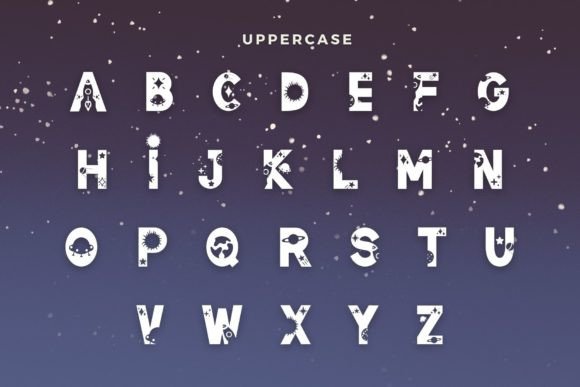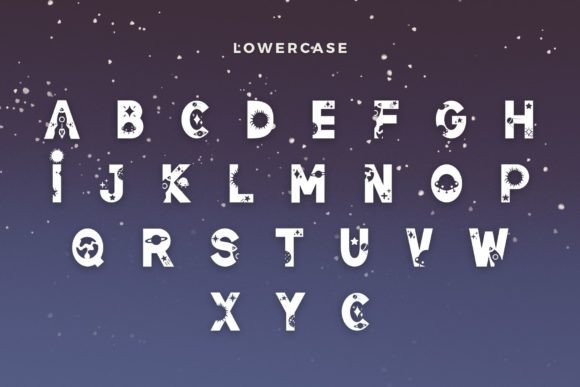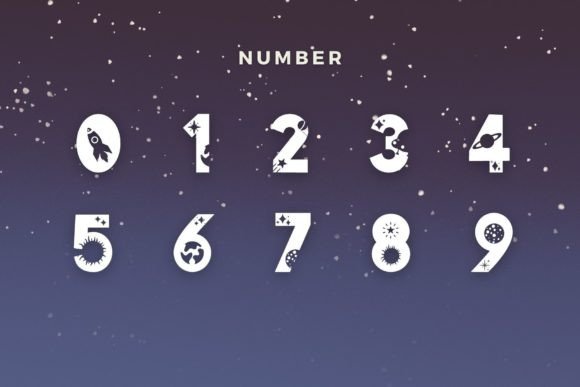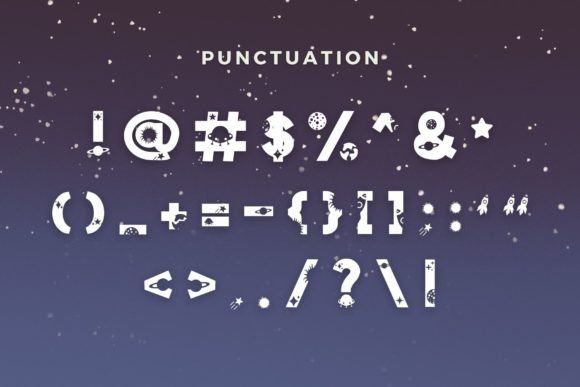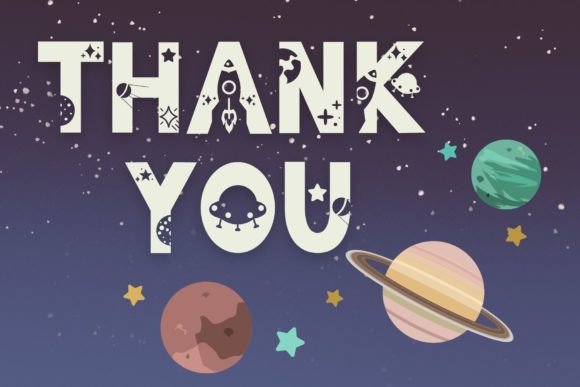
Introduction to Planet Space Font
Planet Space is a jolly and fun decorative font.
It embodies playfulness and authenticity and is the perfect choice for various projects such as blog posts, logos, branding, ads, invitations, greeting cards, planners, photo albums, decorations, and much more Add it to any of your designs, and enjoy the results.